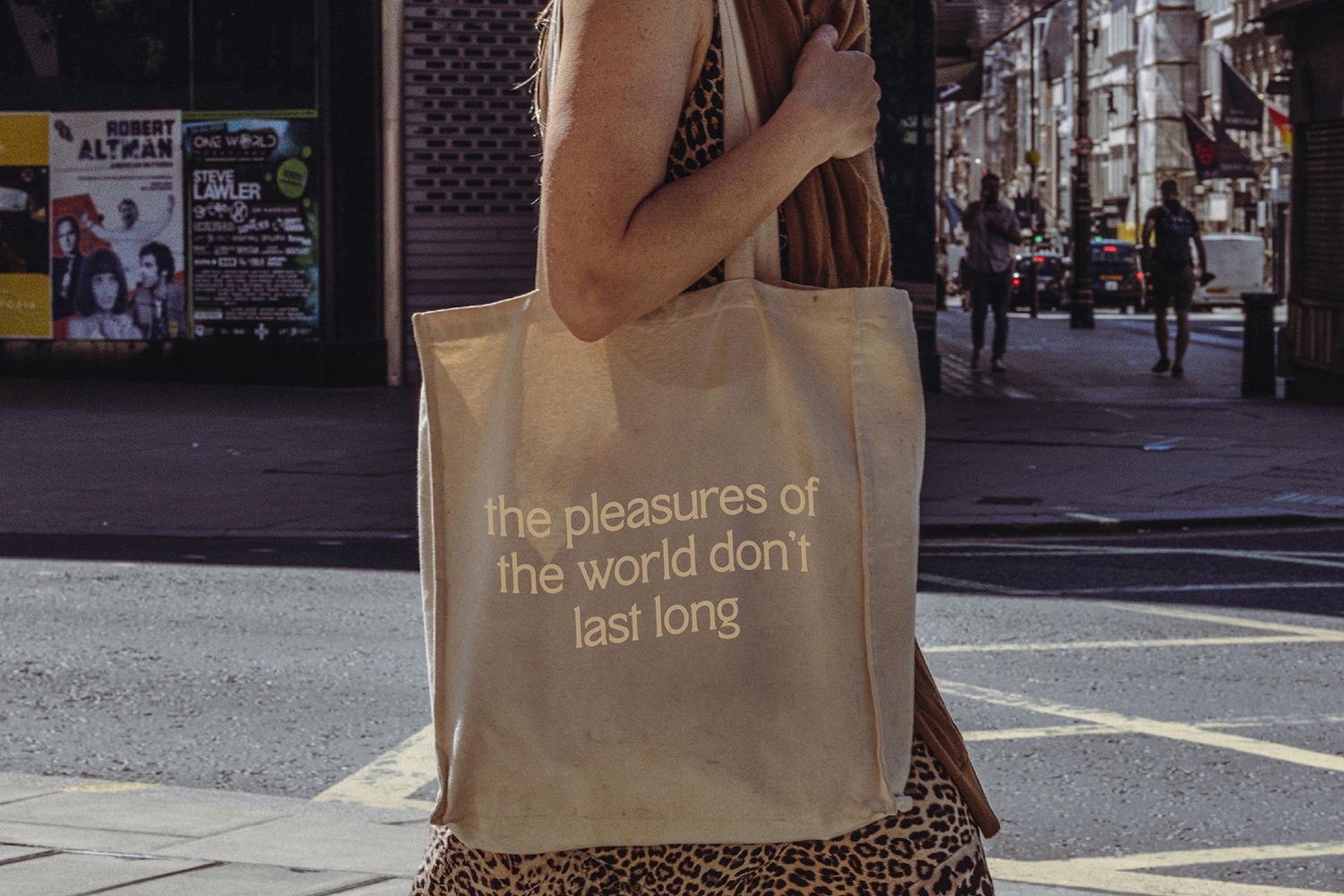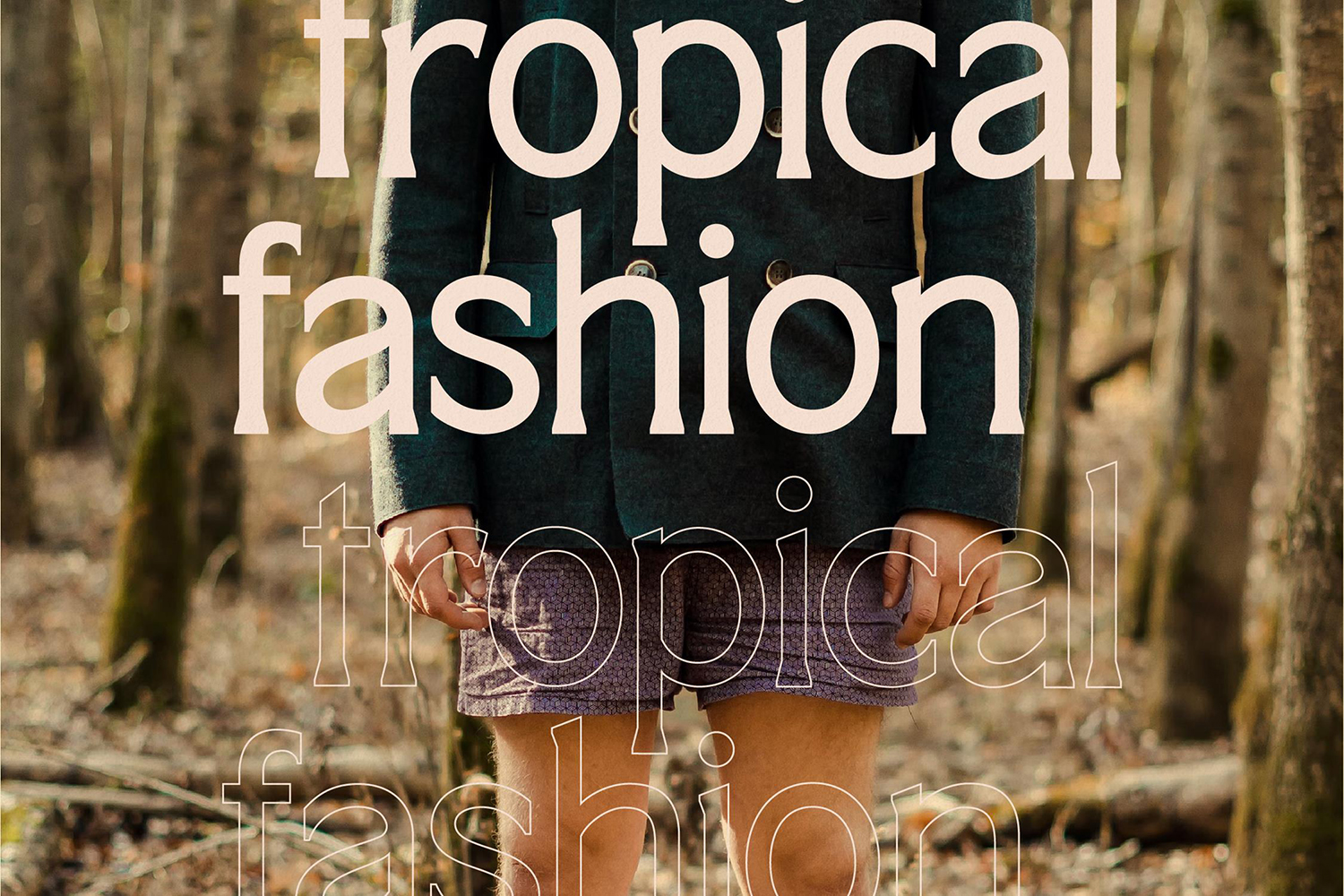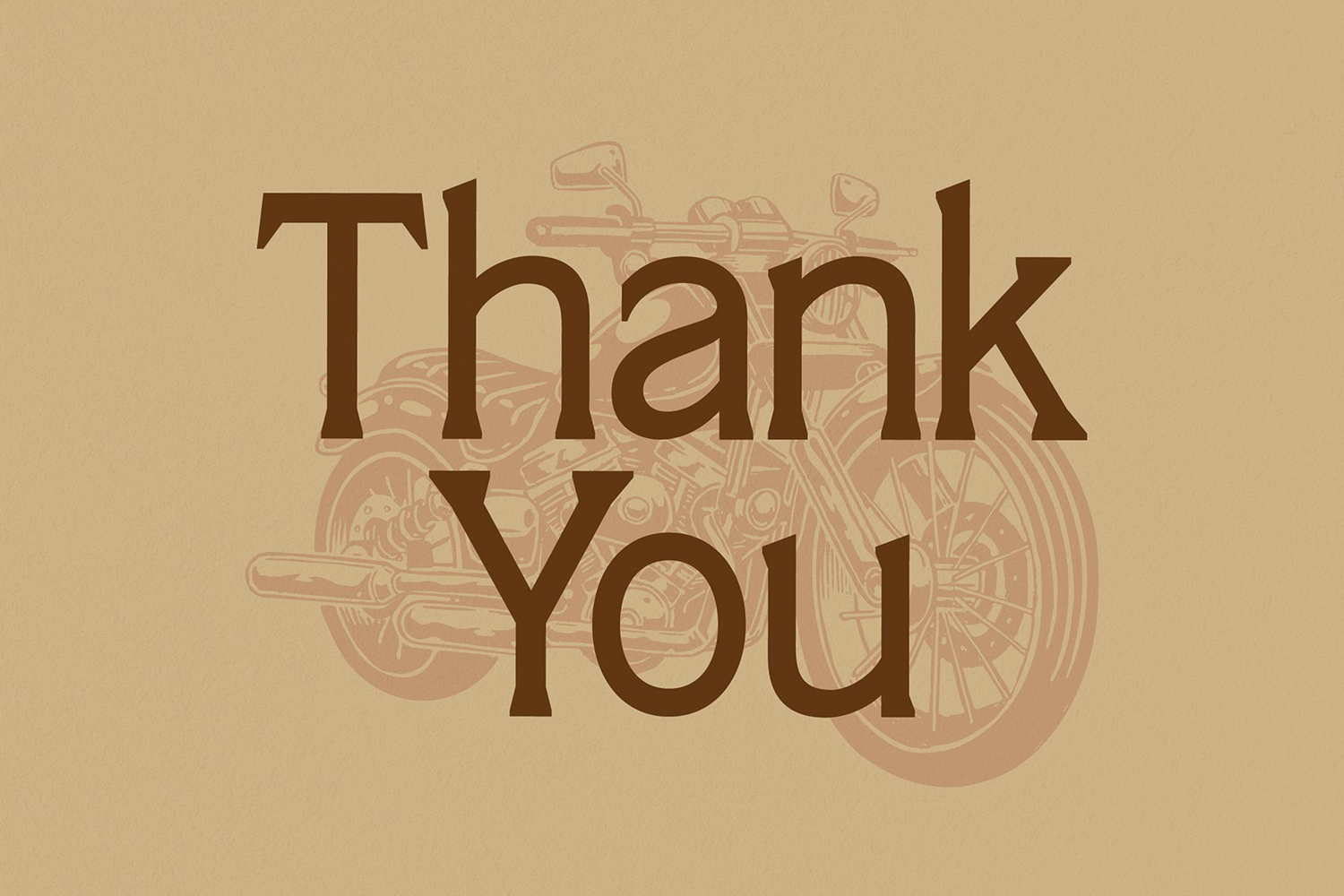
Raider Knight Free Font
Introducing Raider Knight Free Font – a captivating modern and classic serif typeface that boasts its own distinct style and a refreshing contemporary touch. This font is the epitome of perfection for creating elegant and luxurious logos, striking book or movie title designs, sophisticated fashion brand logos, captivating magazines, stylish clothing labels, exquisite lettering, and inspiring quotes, among countless other creative projects. Unlock the creative potential of Raider Knight as it adds an air of sophistication and modernity to your designs. With its versatility and elegance, Raider Knight is the perfect choice for all your creative endeavors. Embrace the allure of this font and let it elevate your projects to new heights of visual excellence. Raider Knight Free Font and unlock endless possibilities for creating stunning and classy designs. This free typeface was designed by a talented Timur type. If you like it don’t forget to check out the full version.